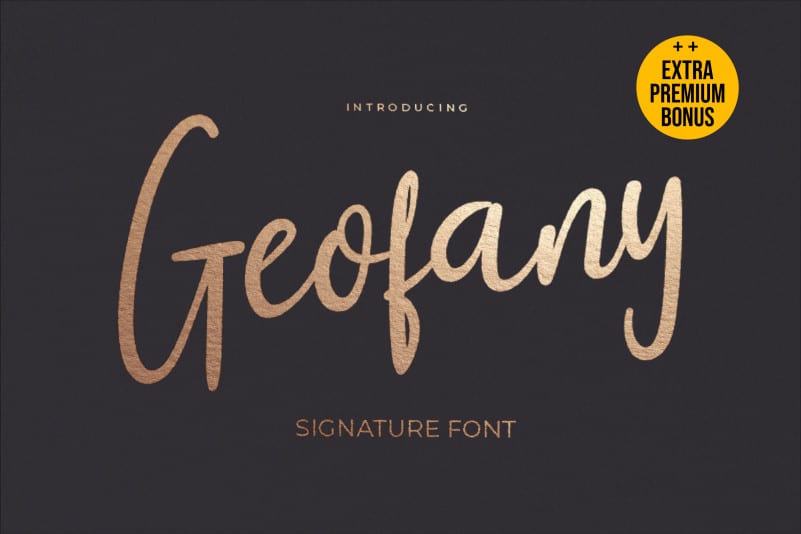
Geofany Script Font
Geofany Script Font is a sweet and flowing handwritten typeface. It looks stunning on wedding invitations, thank you cards, quotes, greeting cards, logos, business cards and every other design which needs a handwritten touch.